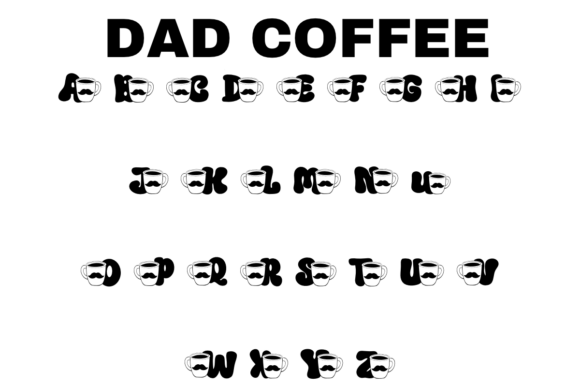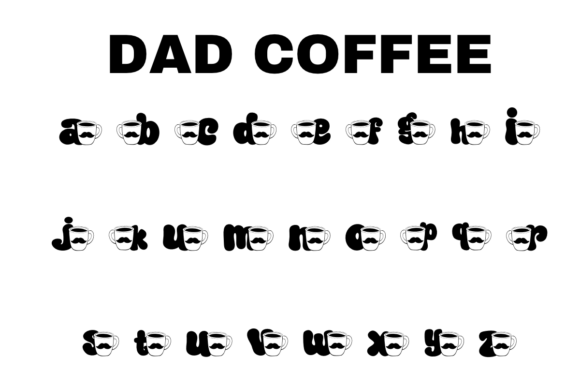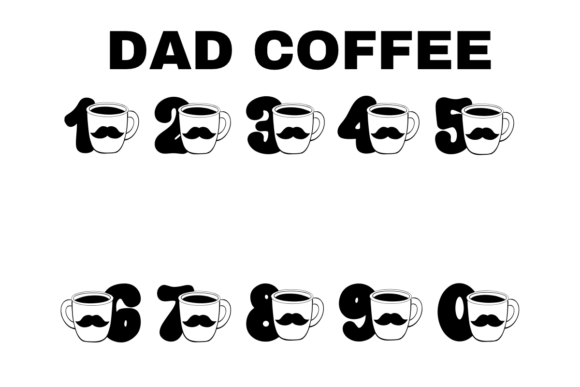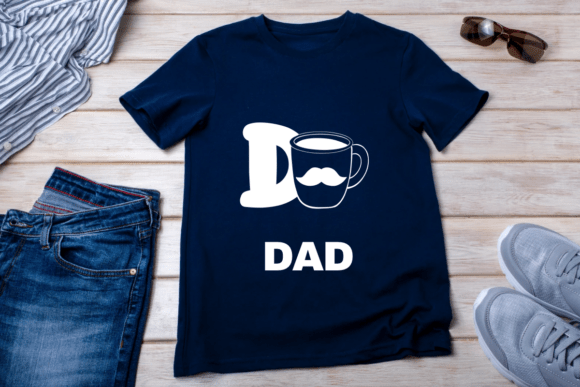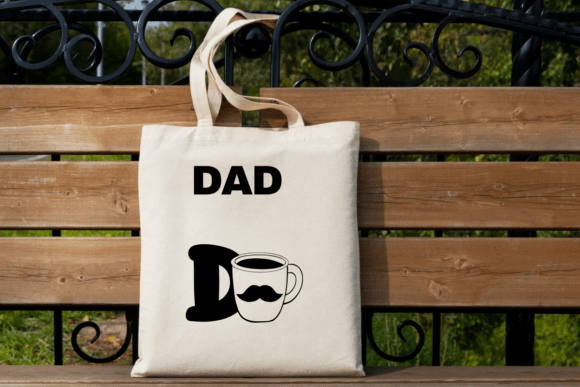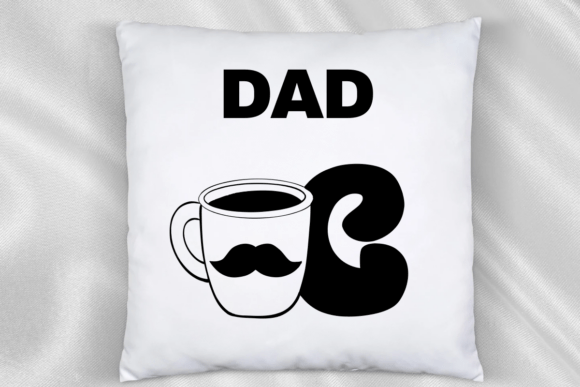
Introduction to Dad Coffee Font
Have you ever been in the middle of a creative project, surrounded by half-finished designs, scribbled notes, and a lingering feeling of uncertainty? That’s where I was when I stumbled upon the Dad Coffee Font – a game-changer for designers and non-designers alike. This beautiful, high-quality font is not just a pretty face; it’s a versatile design resource that can elevate your work and bring a personal touch to your creative projects.
With its transparent background and endless possibilities, the Dad Coffee Font is perfect for writing love letters, taking notes, or creating greeting cards. But its uses don’t stop there – you can also use it for banners, social media posts, mugs, and even shirts. The Dad Coffee Font is a free download that’s sure to become a staple in your design arsenal.
As a valuable resource for designers, the Dad Coffee Font offers a level of sophistication and whimsy that’s hard to find elsewhere. Whether you’re a seasoned pro or just starting out, this font is sure to inspire your next creative project and leave a lasting impression on your audience.
Dad Coffee Font
- High-quality design resource ideal for creative projects and personal use
- Unique, modern design with a transparent background for seamless integration
- Perfect for use in digital and print media, including logos, signage, and branding
Honest Review: Dad Coffee Font
I recently had the chance to work with the Dad Coffee Font in a creative project, and I must say it’s been a game-changer. This font has quickly become one of my go-to design resources.
Here are some of the things I love about the Dad Coffee Font:
- ✨ High-quality design that’s perfect for modern branding
- ✨ Transparent background, allowing for seamless integration with any design
- ⚠️ Limited font weights, which may require additional font pairing
- ⚠️ Not ideal for text-heavy designs, as it may be difficult to read in smaller sizes
Overall, I’m really impressed with the Dad Coffee Font. Its unique design and high-quality feel make it a valuable addition to any design library. If you’re looking for a modern, high-end font for your creative project, I’d definitely recommend giving the Dad Coffee Font a try.
Dad Coffee Font
Tips for Getting the Most Out of Dad Coffee Font
To get the most out of the Dad Coffee Font, use it on a transparent background to create a unique and eye-catching design. You can also experiment with different font sizes and colors to add depth and visual interest to your project.
The Dad Coffee Font is ideal for coffee shop logos, menu boards, and promotional materials. It’s also great for creating invitations, social media graphics, and other creative projects where a high-quality, modern font is needed.
Q: Does Dad Coffee Font have a transparent background?
Yes, Dad Coffee Font features a transparent background, making it easy to overlay on top of images or other design elements. This is especially useful for creative projects where a clean and minimalist look is desired.
Q: Is Dad Coffee Font suitable for high-quality design projects?
Yes, Dad Coffee Font is a high-quality design resource that’s perfect for creative projects. Its clean and modern design makes it an excellent choice for logos, branding materials, and other design elements that require a professional touch.